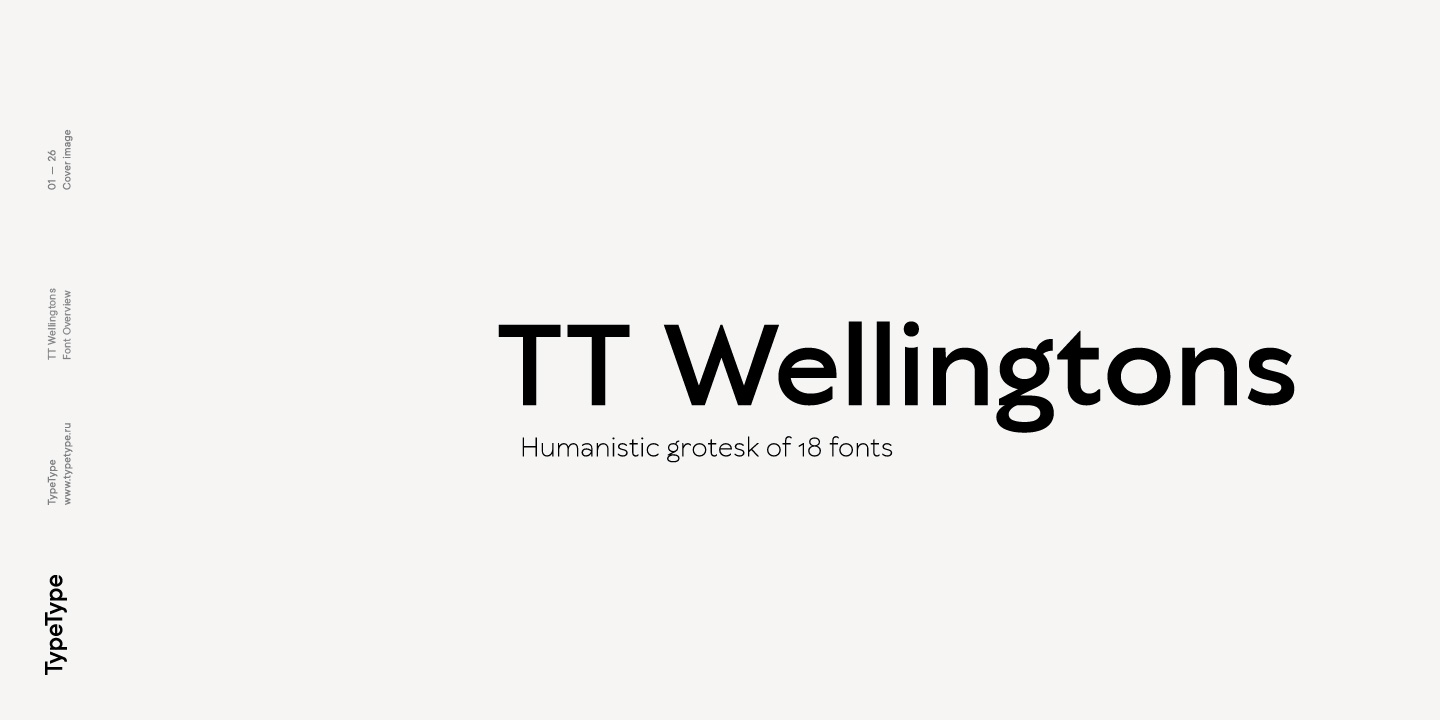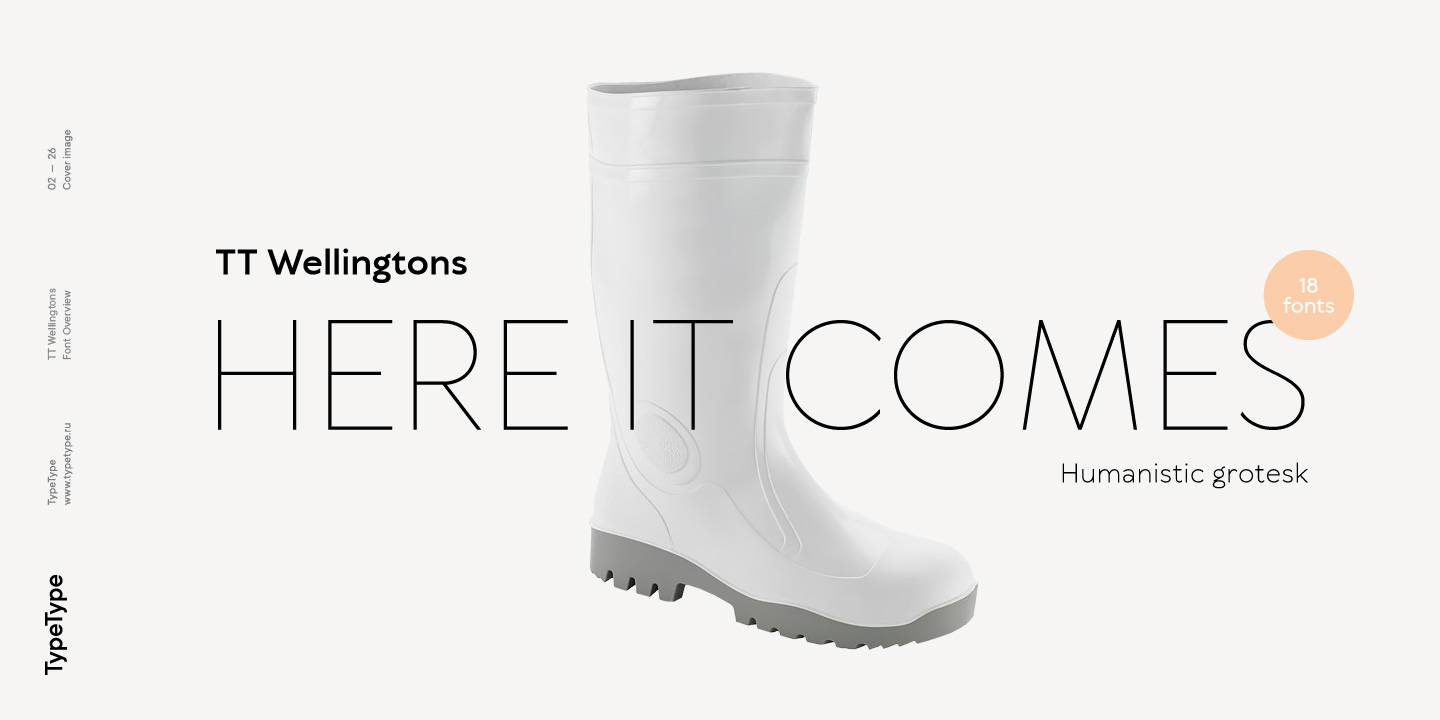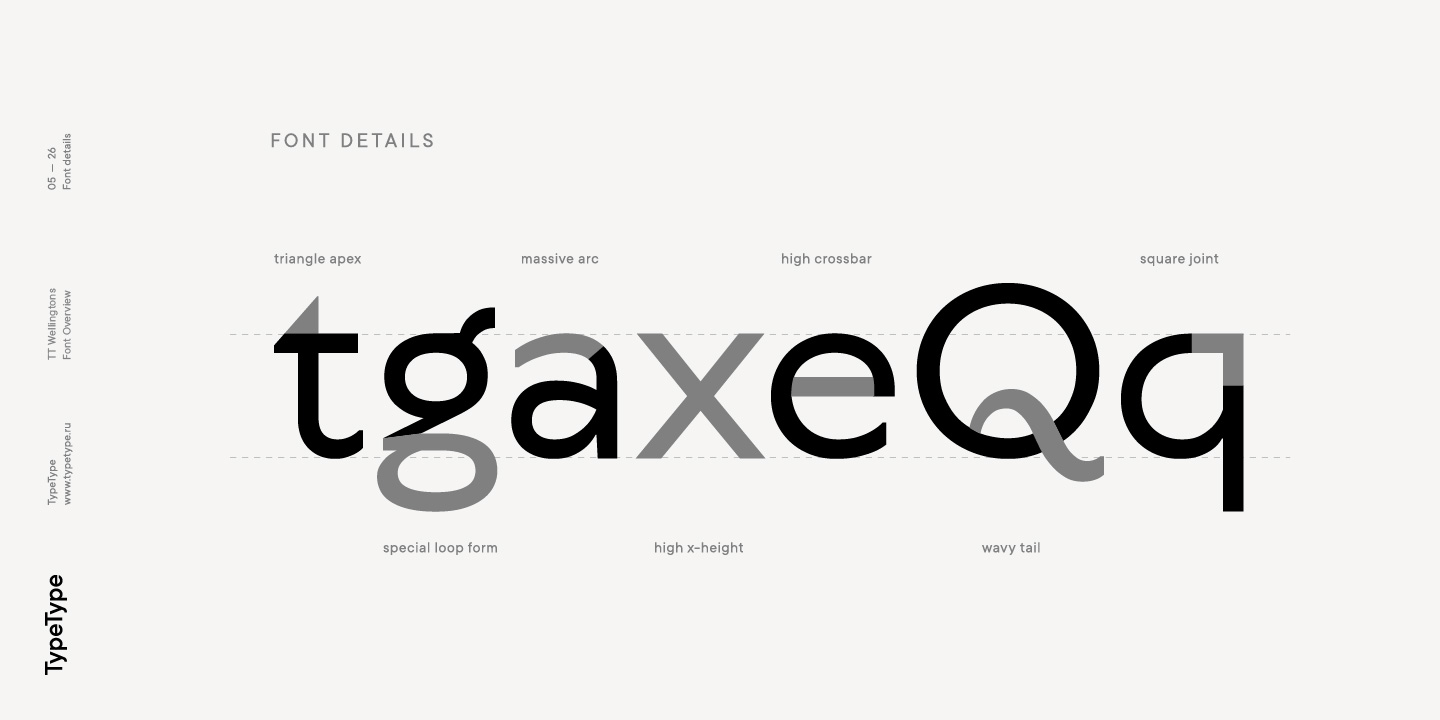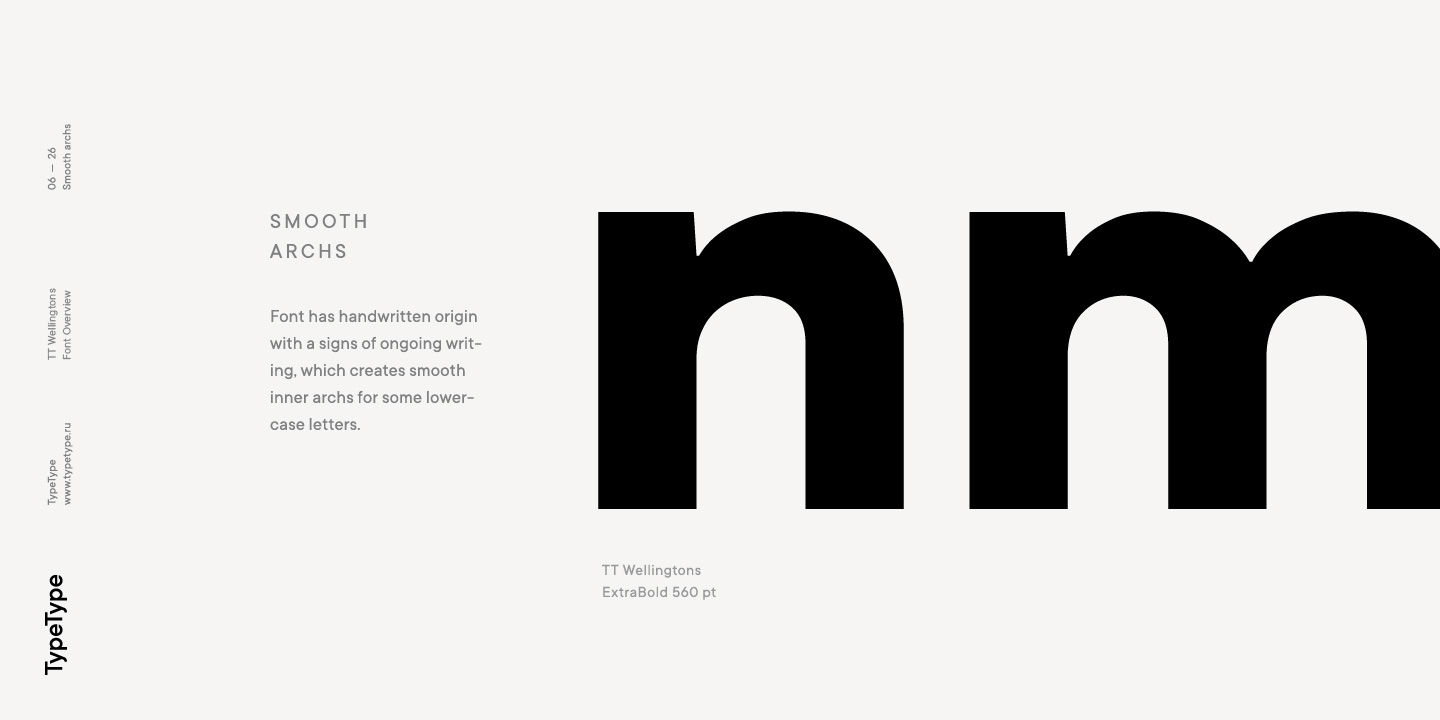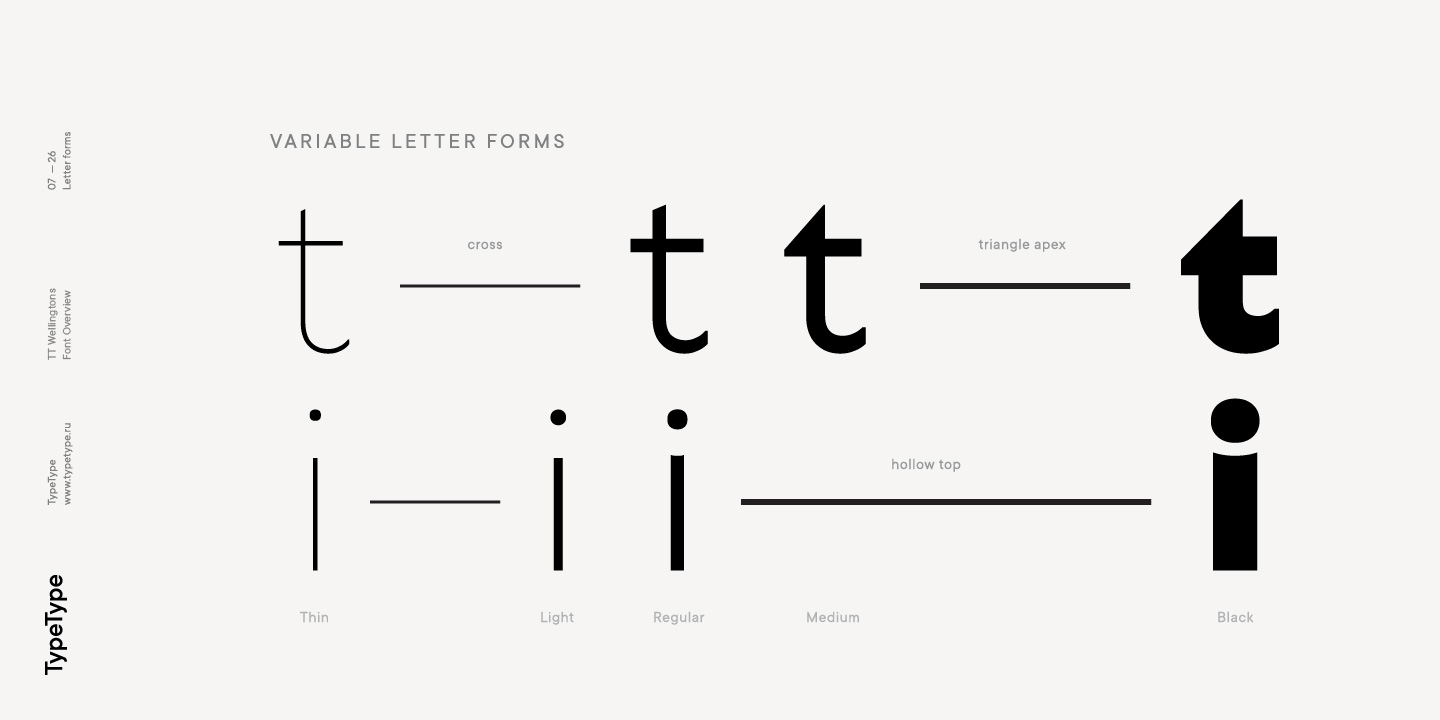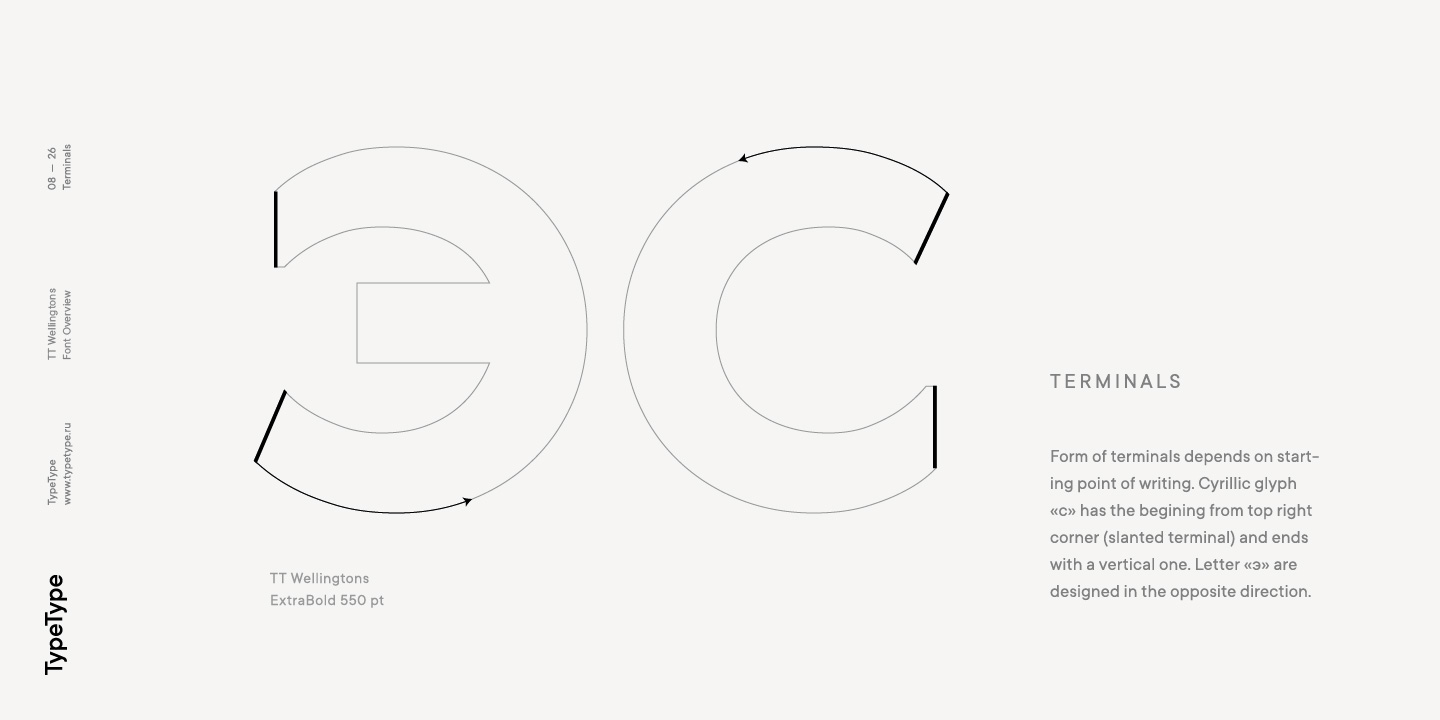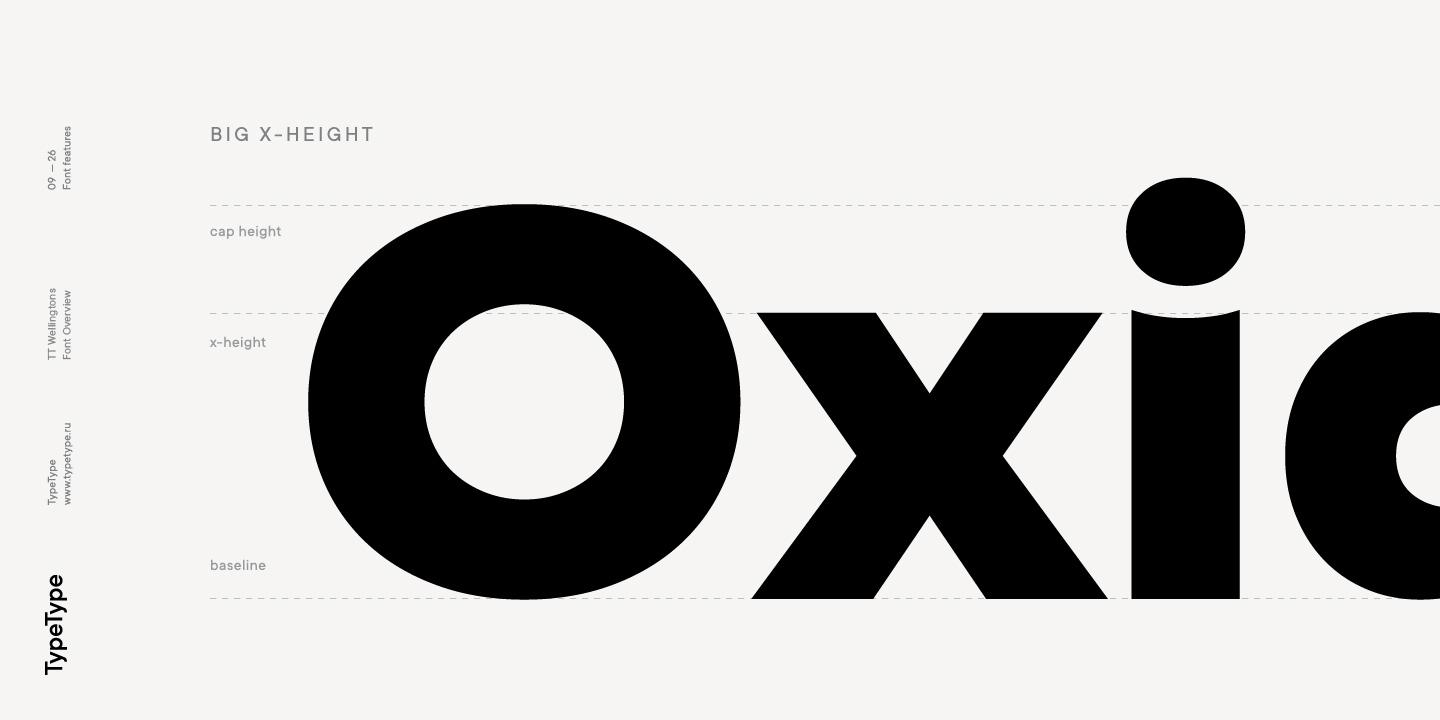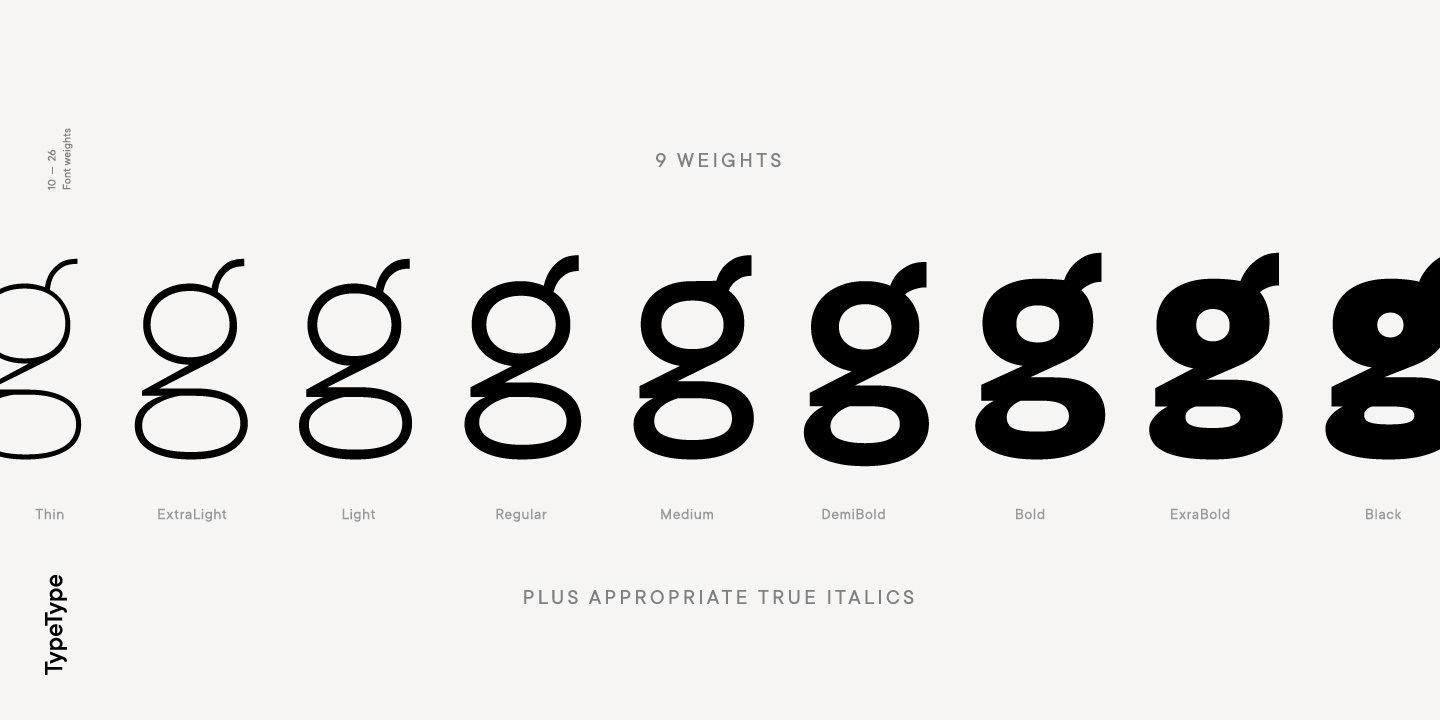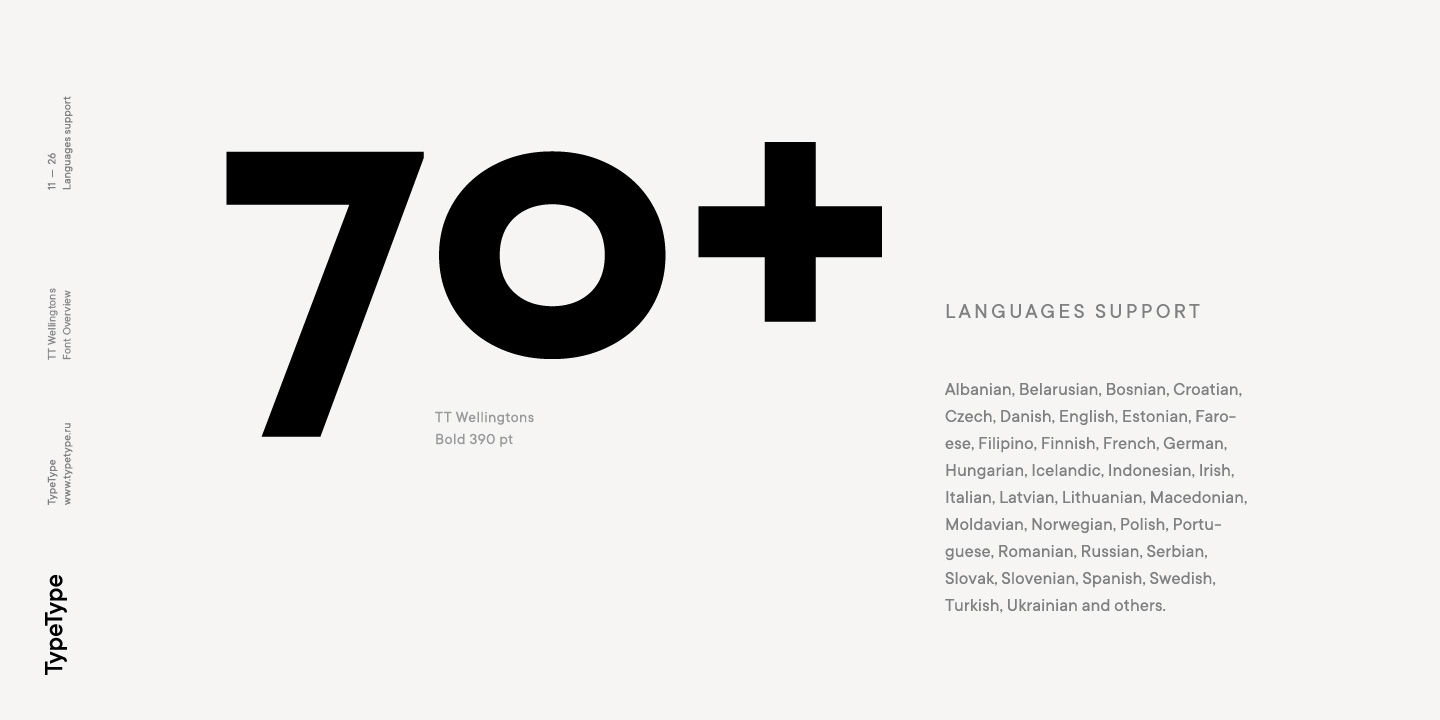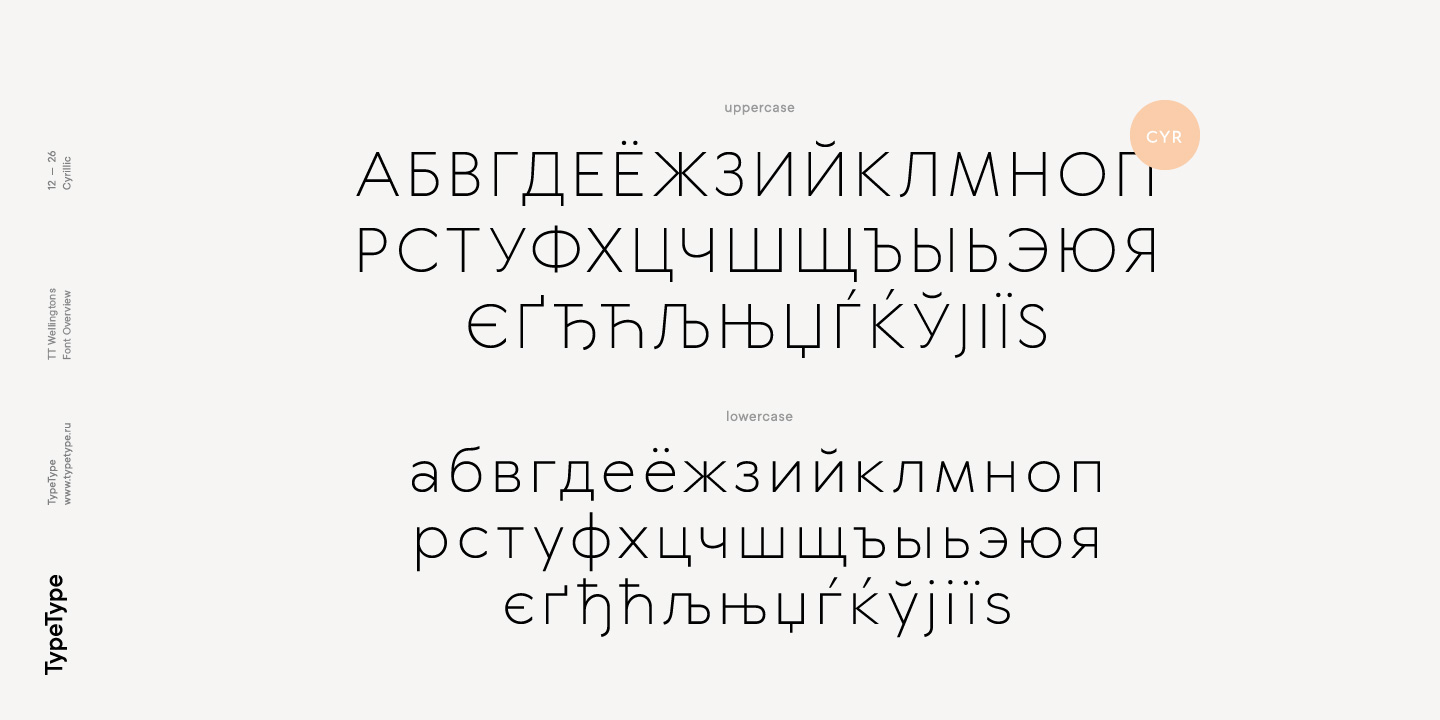
TT Wellingtons Family (18 fonts)
TT Wellingtons features many characteristics of the poster pen including asymmetric sections of the upper and lower corners of the letters “C” or "?" and the smooth connection which are clearly visible in lowercase Latin character such as the letter “n”. The typeface also features a set of stylistic alternates that changes the shape of style-forming characters.
TT Wellingtons consists of 9 weights and 9 true Italics. By default, the standard set uses minuscule digits, but if necessary, you can easily turn the lining figures on. The typeface includes more than 20 ligatures, stylistic alternates and other useful features. The full list of OpenType features used in TT Wellingtons includes: ordn, sups, sinf, numr, dnom, lnum, onum, tnum, pnum, liga, dlig, salt, ss01, ss02, ss03, ss04, case, frac.